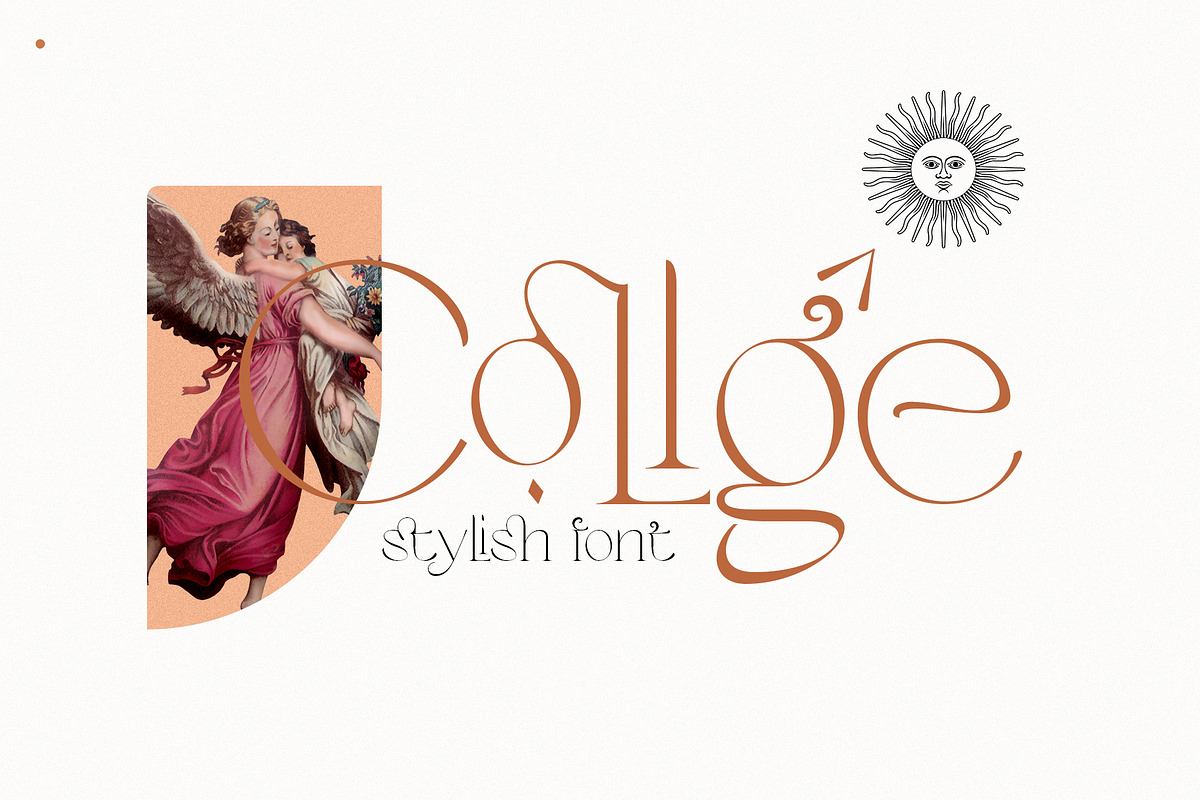
Collge Serif Font Free Download is a stylish and contemporary serif typeface with a unique blend of modern elegance and classic charm. Ideal for editorial layouts, high-end branding, book covers, logos, and upscale packaging, Collge adds sophistication and readability to any design.
With its clean lines, balanced proportions, and subtle detailing, Collge is perfect for both large headlines and body text. Whether you're designing for a luxury brand or crafting professional publications, this font brings a timeless and polished look.